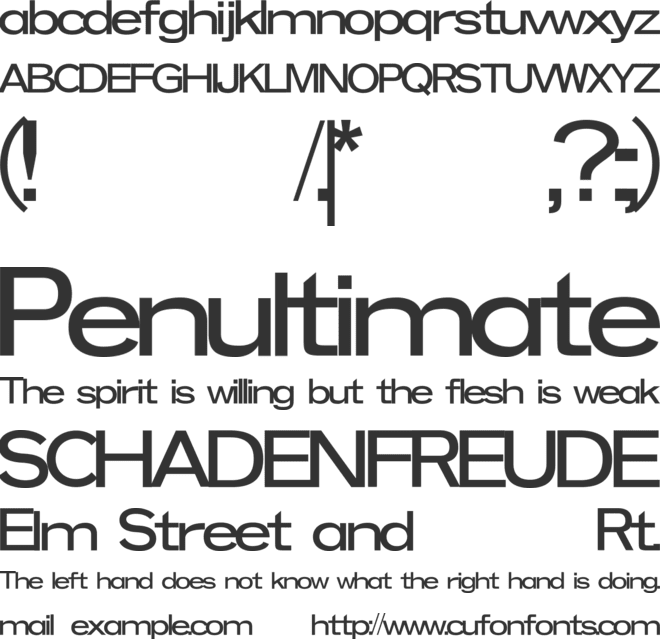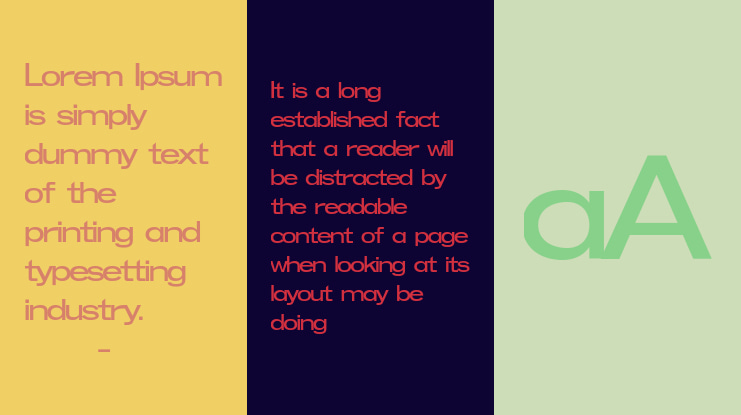
QUINCY Font
🎨 Font Name: Quincy by Minimalist Art Studio
🎨 Font Description: Quincy is a minimalist sans serif with multilingual support and modern restraint, ideal for branding, packaging, and editorial design.
βœ” Complete Latin set + multilingual diacritics
βœ” Alternates, stylistic sets & ligatures
βœ” Numbers, small caps, and extended punctuation
βœ” Bonus italics and family styles